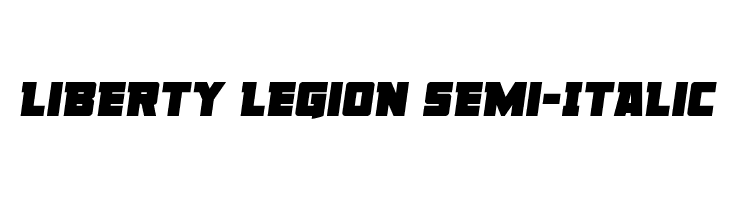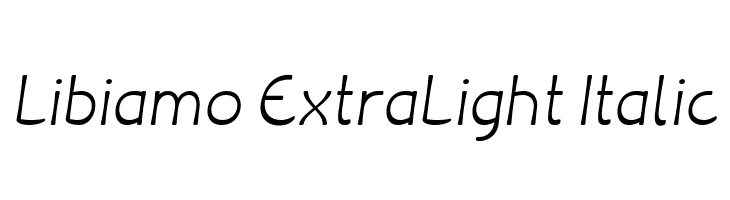
A bold, outlined font with a geometric and modern style.
A bold, outlined, italic font with a modern and dynamic style.
A bold, angular, and slightly italicized font with a dynamic and energetic style.
A bold, italic font with a dynamic and angular style.
A modern, clean sans-serif font with excellent readability.
A bold, playful font with rounded edges and a whimsical style.
A bold, italic font with rounded characters and a dynamic, energetic style.
A playful, rounded, and extra light font with a modern and minimalist style.
A delicate, extra light italic font with smooth, flowing lines.